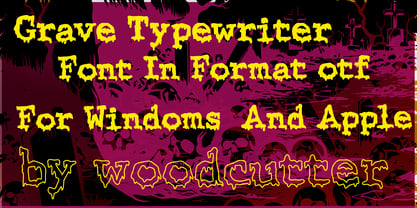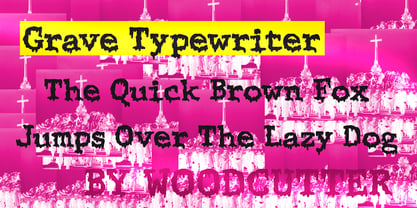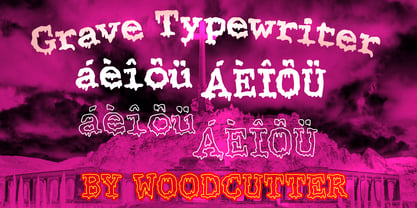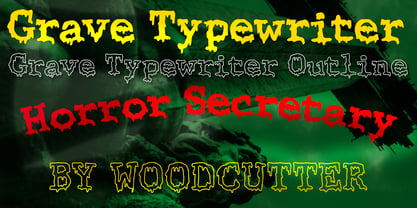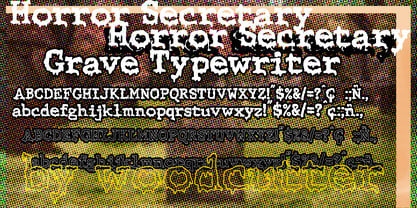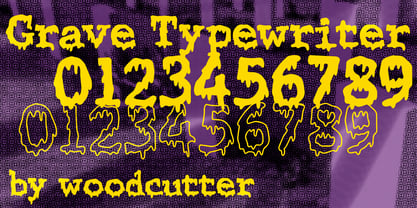
Grave Typewriter
par Woodcutter
La famille de polices Grave Typewriter a été conçue par Jordi Manero et publiée par Woodcutter. Grave Typewriter contient 2 styles et options de package familial. En savoir plus sur cette famille
Grave Typewriter is a typeface family that merges the classic aesthetic of typewriters with a disturbing atmosphere inspired by pulp horror. Designed in both uppercase and lowercase with full accent support, this font transforms mechanical rigidity into a visceral visual experience, where function meets unsettling expression.
Its forms begin with a traditional monospaced structure but quickly dissolve into irregular, organic contours that appear to melt. In the main version, Grave Typewriter, the letters take on a liquid-like appearance, as if made from thick ink or fresh blood, creating a tense and narrative-driven effect. Edges blur, strokes drip, and each character exists in a constant balance between legibility and grotesque distortion.
In contrast, Grave Typewriter Outline presents the same structure in an outlined, hollow version. This variation maintains the expressive, distorted qualities while offering a lighter visual presence, ideal for layered, open, or experimental compositions.
Grave Typewriter is perfect for horror projects, comics, film, dark music, or editorial design seeking a strong narrative voice. It is not just a typeface—it suggests stories, builds atmosphere, and turns every word into a haunting visual experience.
Concepteurs: Jordi Manero
Fonderie: Woodcutter